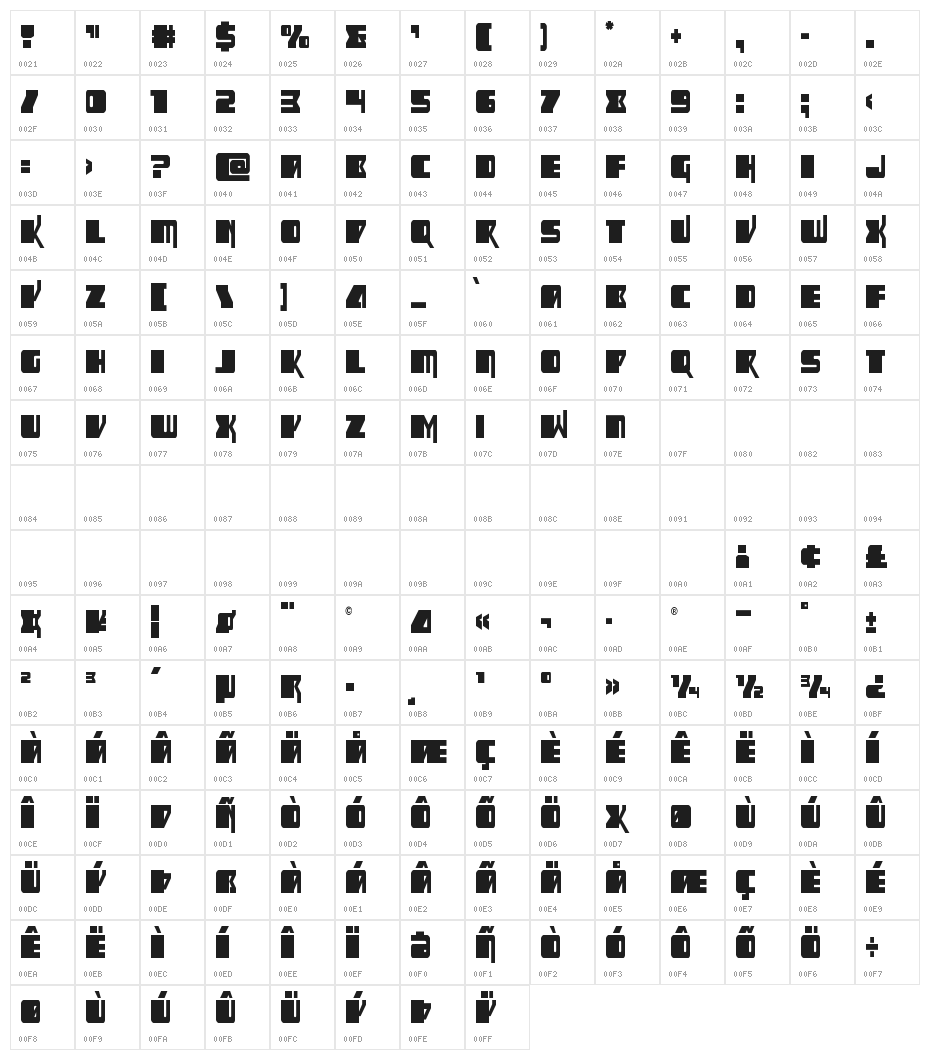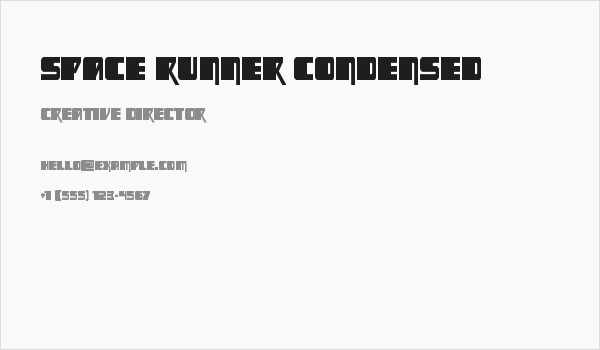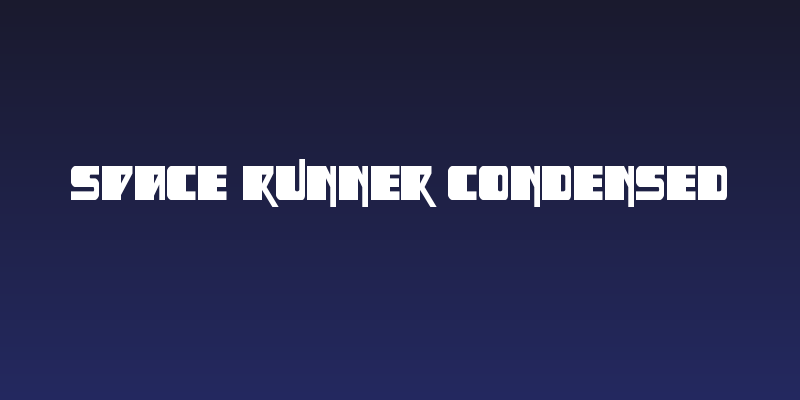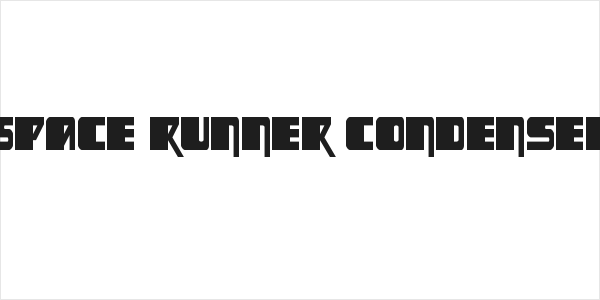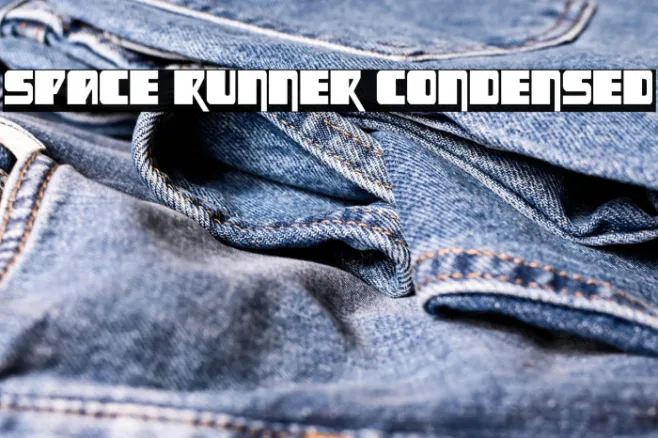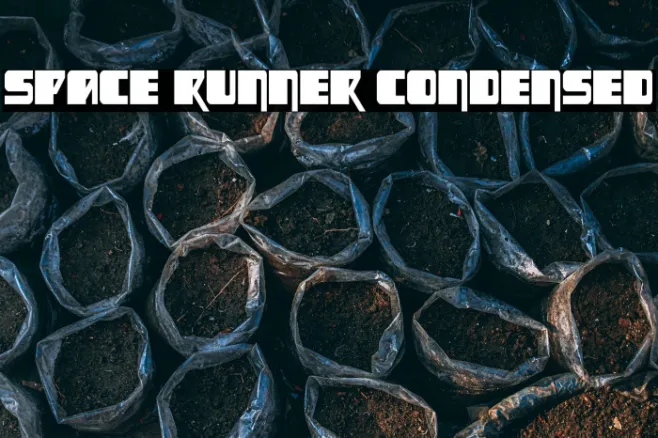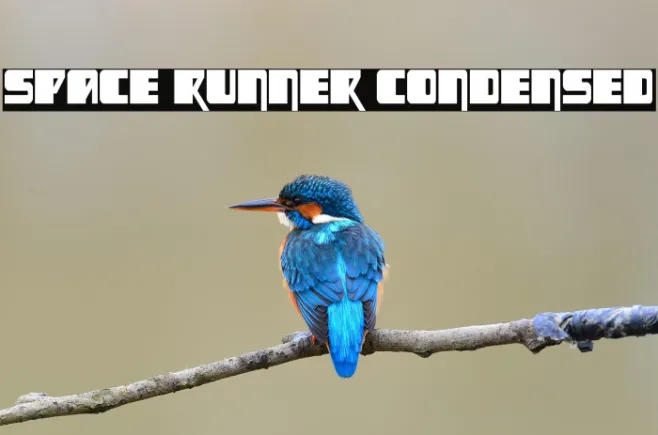
Space Runner Condensed Font
Space Runner Condensed Description
This font features a bold, futuristic design with a condensed structure, characterized by sharp angles and geometric shapes. The uppercase letters are particularly striking, with a blocky appearance that suggests a sense of strength and modernity. The lowercase letters maintain the same angular aesthetic, creating a cohesive look across all characters. Numbers and special characters are equally bold, ensuring consistency throughout. The font's overall style is distinctly modern, making it suitable for projects that require a contemporary and edgy feel.
| Proposed Projects | Ideal for sci-fi themed designs, video game titles, tech branding, and futuristic posters. |